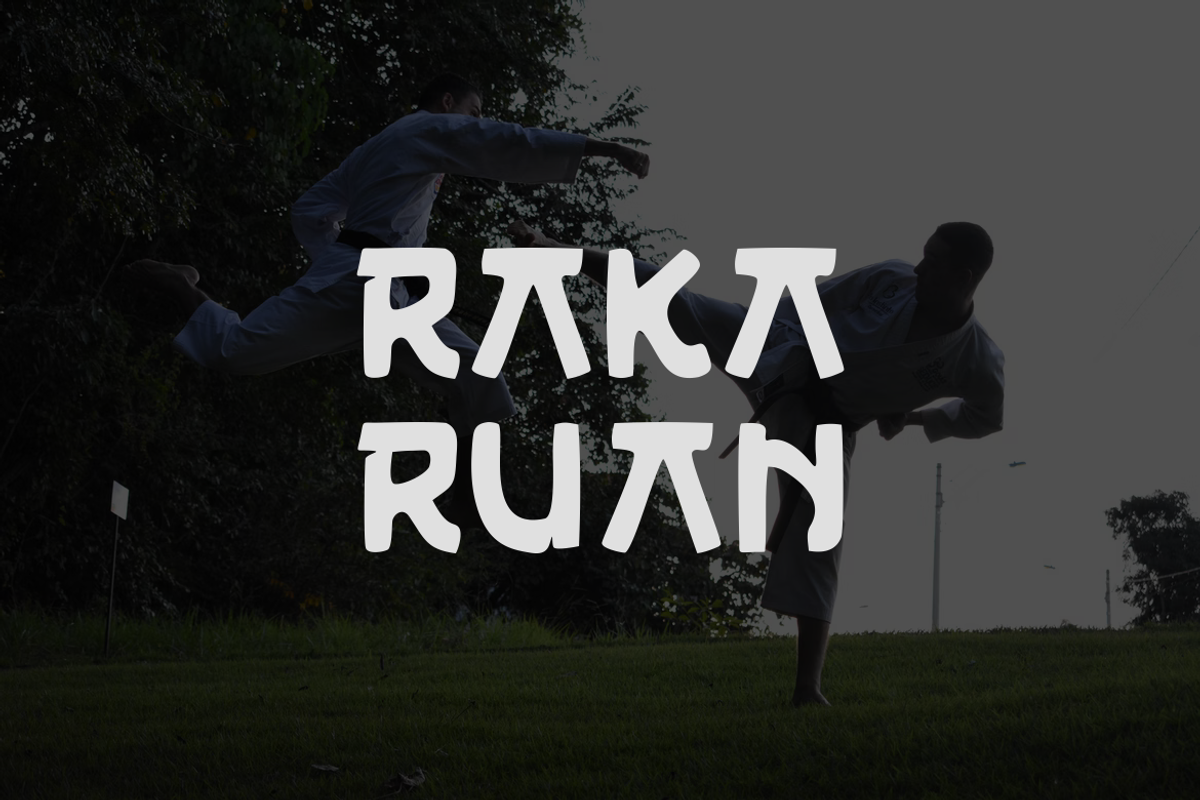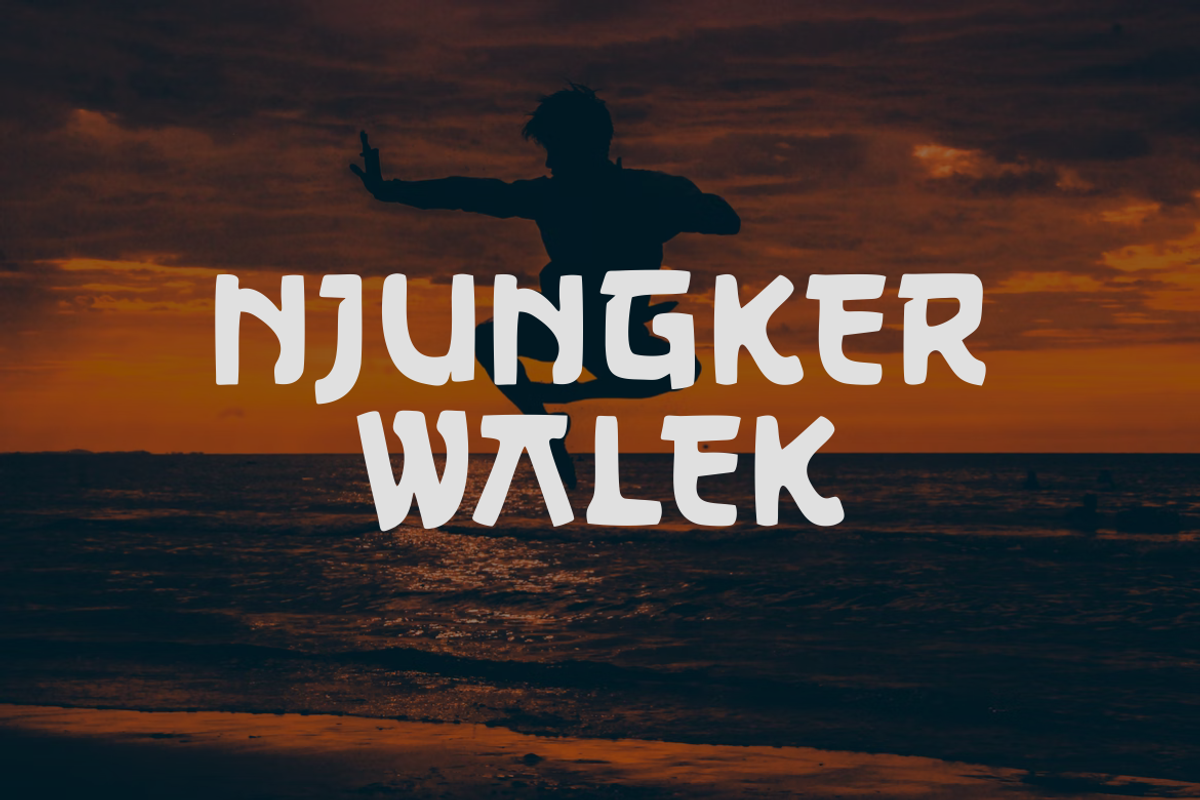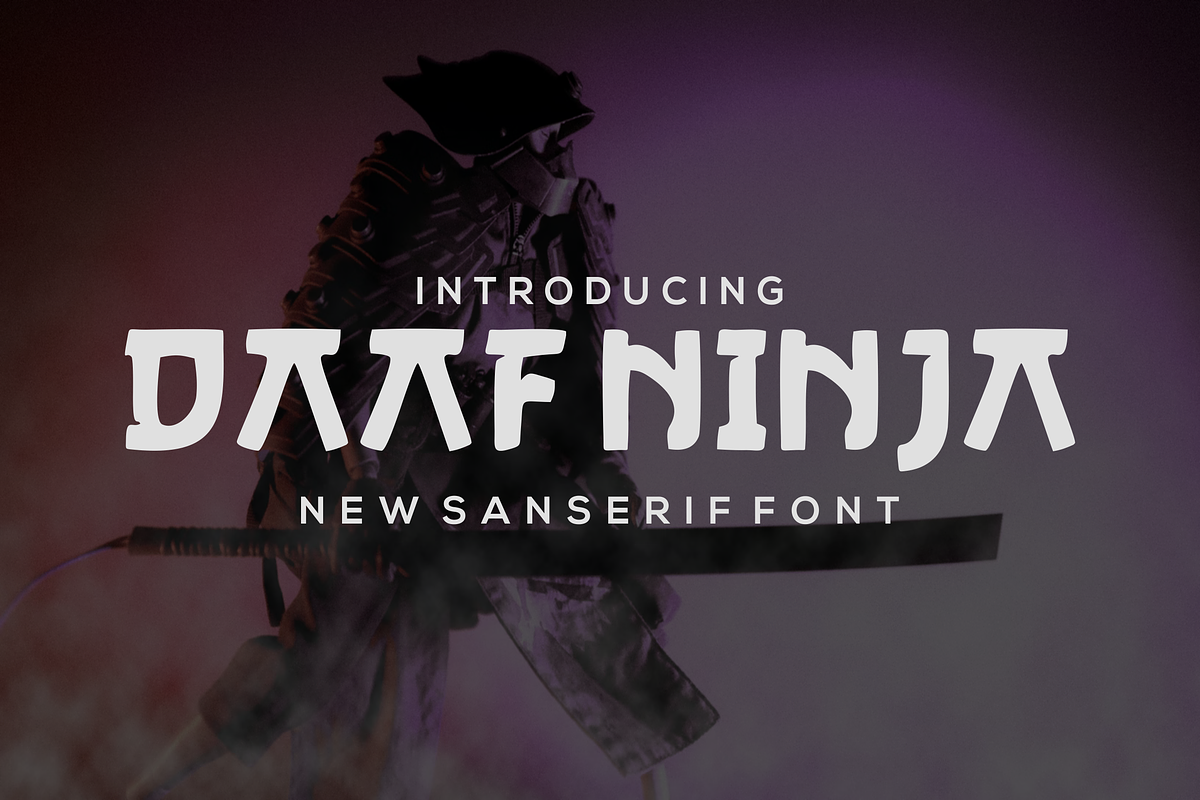
Daaf Ninja
Introducing our new product Daaf Ninja Font - Modern Font
Daaf Ninja Font - Modern Font is a bold and authentic display font. The font is suitable for any branding project like logo, t-shirt printing, esport, and many more. outstanding in a wide range of contexts.